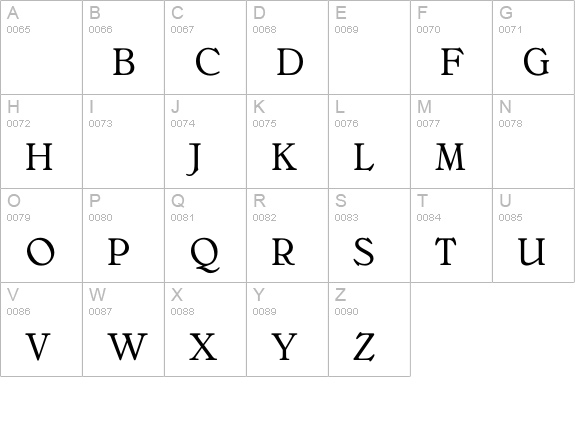
BelliniOriginal font is a modern and elegant typeface that exudes sophistication and style. With its sleek lines and graceful curves, this font is perfect for adding a touch of class to any project. Whether you're designing invitations, creating branding materials, or crafting a professional document, BelliniOriginal font will elevate your work to the next level. The best part? BelliniOriginal font is completely free to download at FontsMarket.com! You can easily access this stunning font and use it in your projects without any cost. Don't miss out on the opportunity to enhance your designs with the timeless beauty of BelliniOriginal font. Download it today and see the difference it can make in your work.